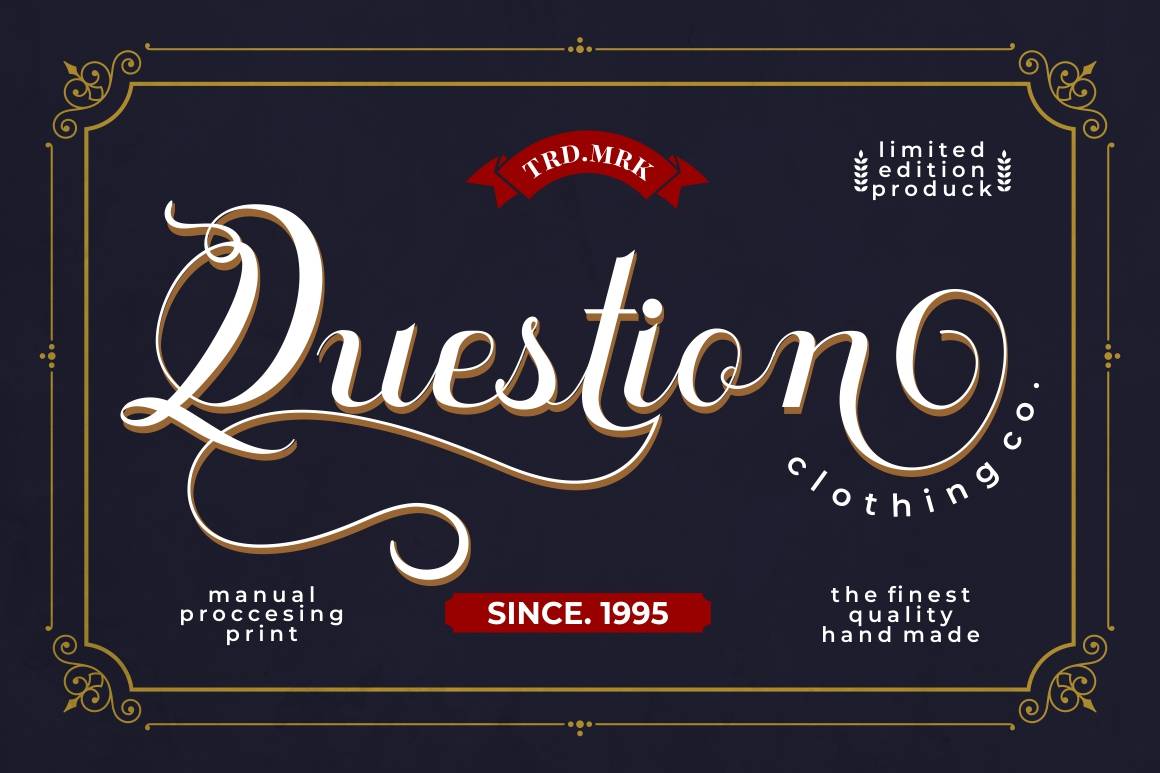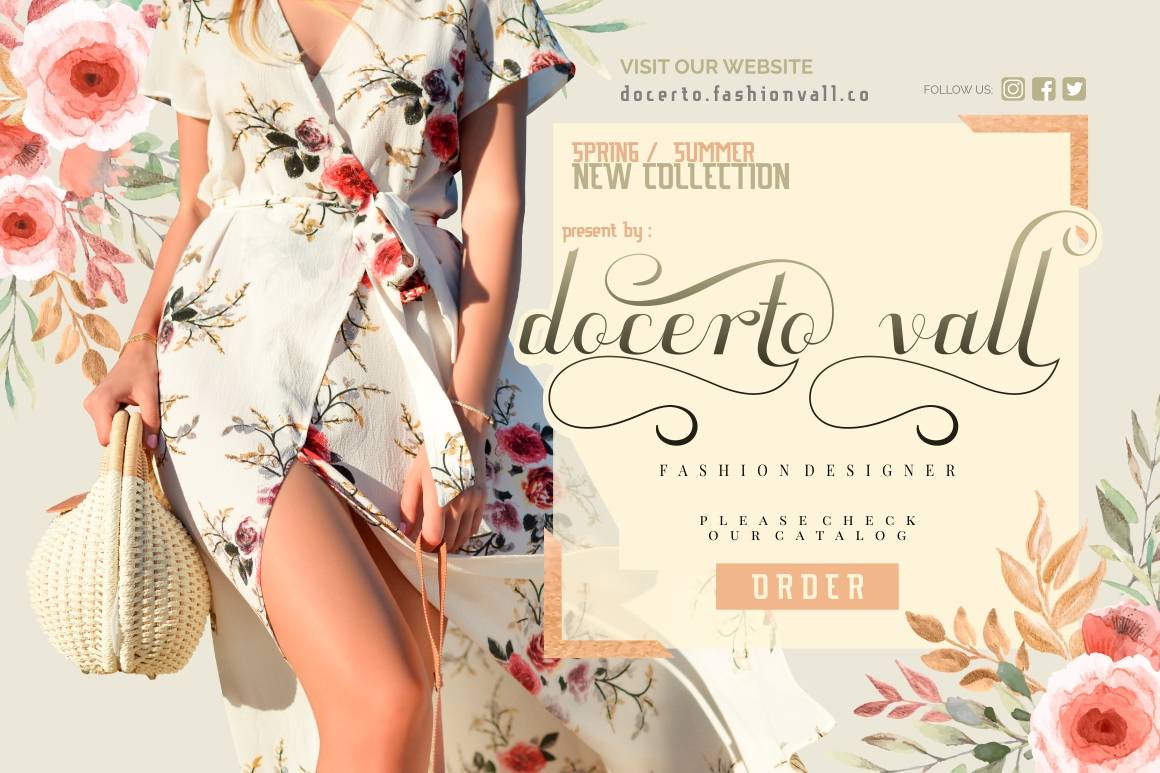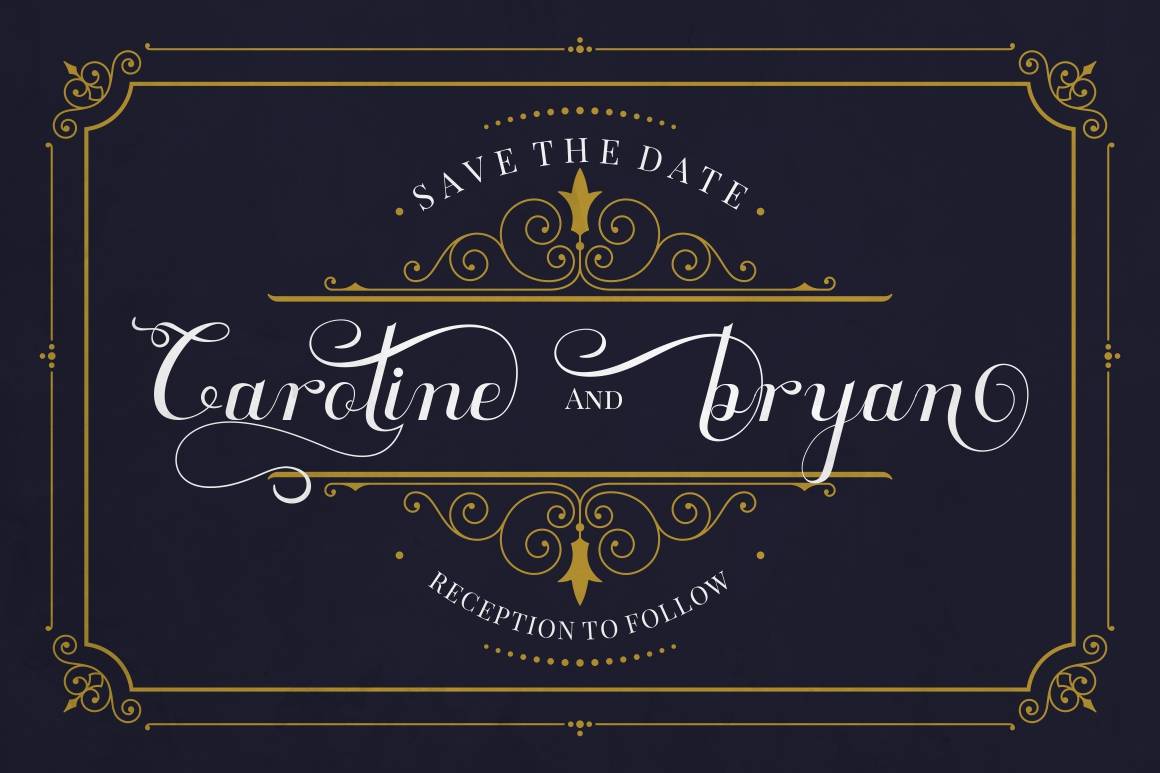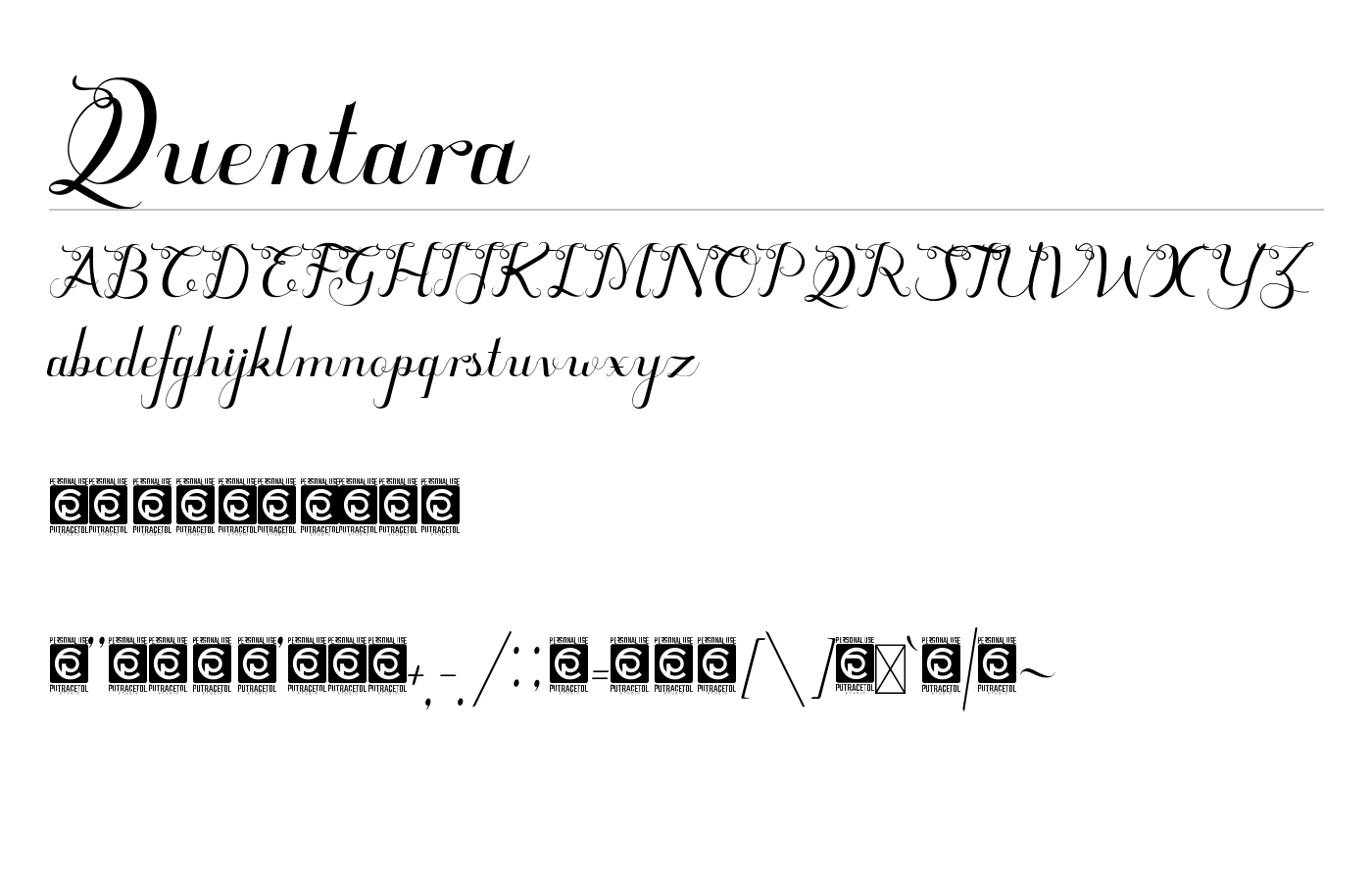
Quentara is an elegant script font characterized by its delicate, flowing strokes and graceful swashes, giving it a refined and sophisticated appearance. Its high contrast between thick and thin lines, along with ornate uppercase letters, makes it ideal for luxury branding, wedding invitations, and upscale editorial use where a touch of classic beauty is desired. This font effortlessly conveys a sense of elegance and timeless charm, perfect for projects aiming to evoke a polished, artistic feel.
Quentara Font
About Quentara Font
| Font family | Quentara Font |